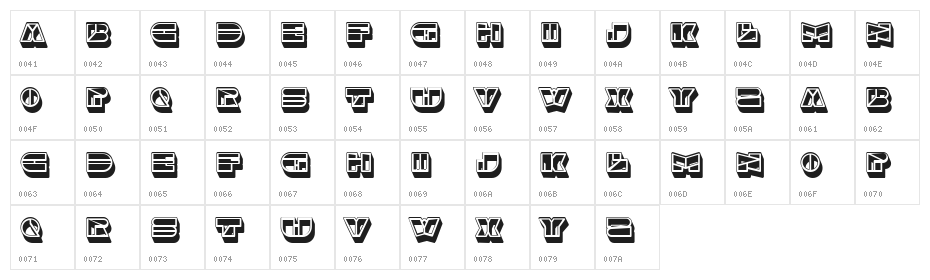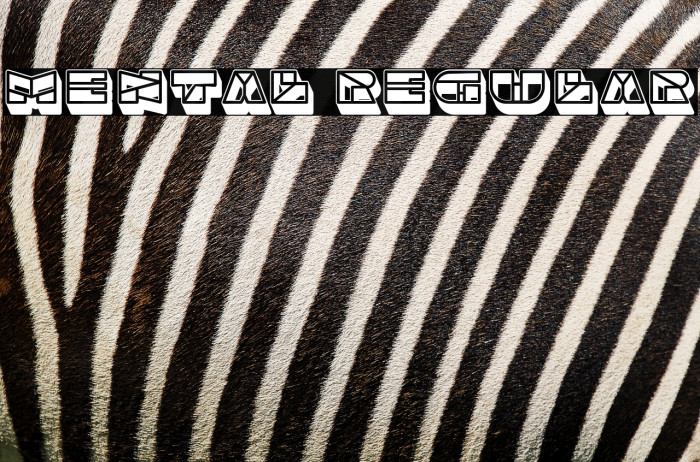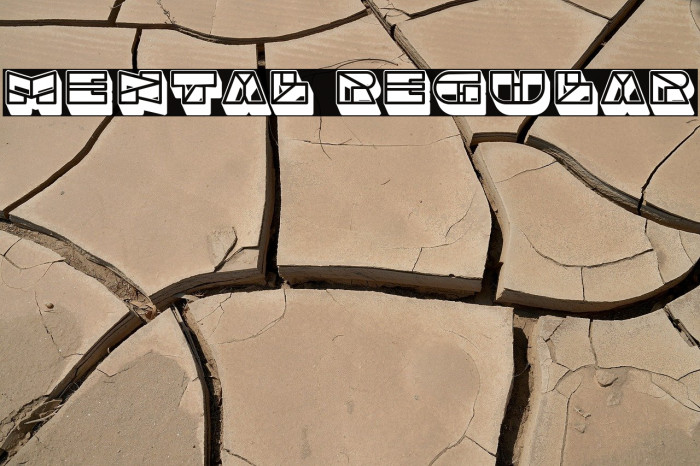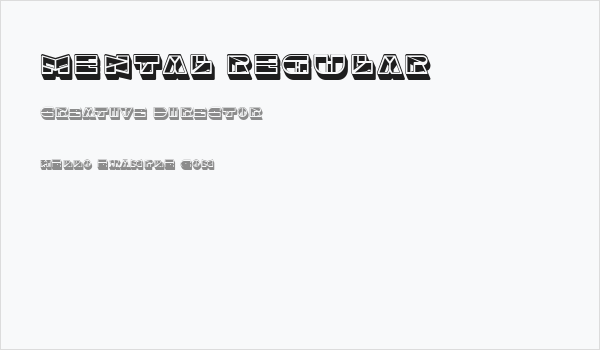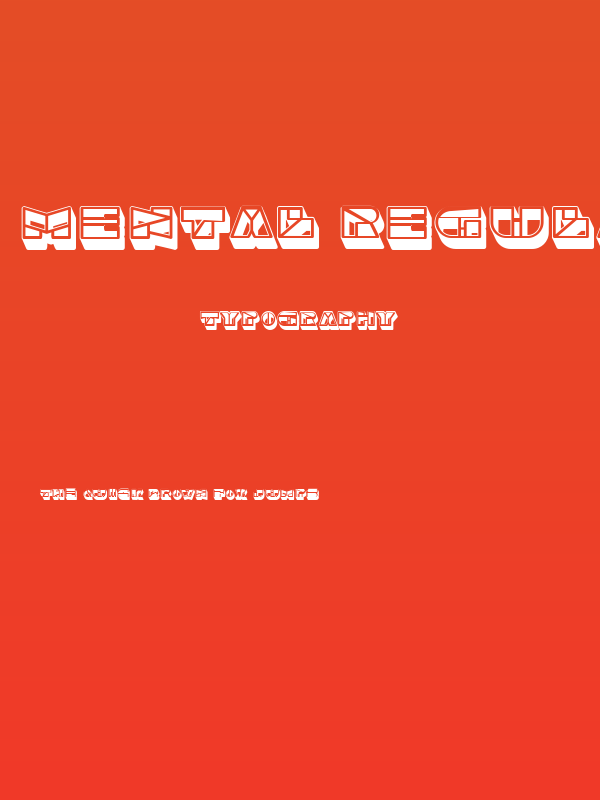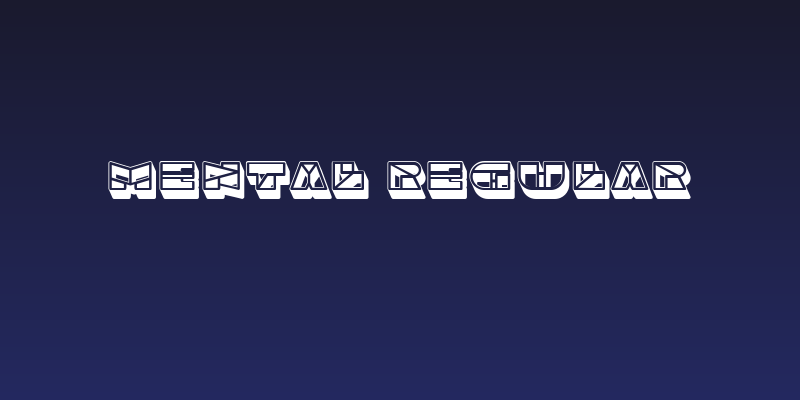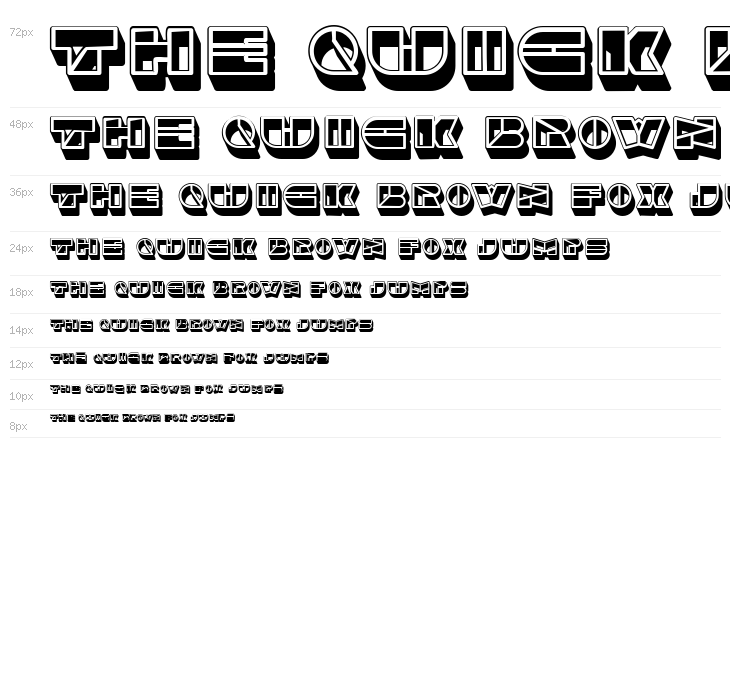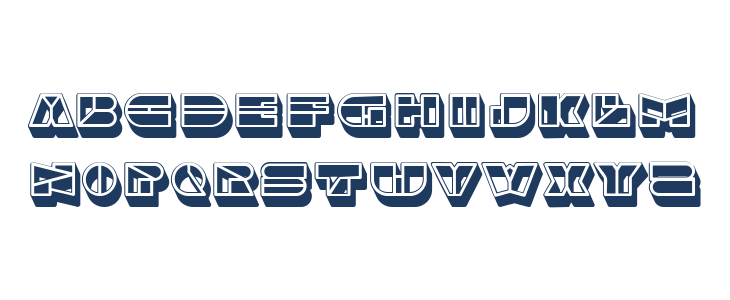
Mental Regular Font
Mental Regular Description
This font features a bold, geometric design with a three-dimensional effect. Each character is crafted with a distinct shadow, giving it a striking, layered appearance. The font combines sharp angles and clean lines, creating a futuristic and dynamic look. The uppercase letters are particularly prominent, with a strong presence that commands attention. The overall style is modern and edgy, making it ideal for projects that require a bold statement. The unique design elements make it stand out, while maintaining readability.
Proposed ProjectsIdeal for posters, headlines, logos, and branding materials that require a bold and modern aesthetic.